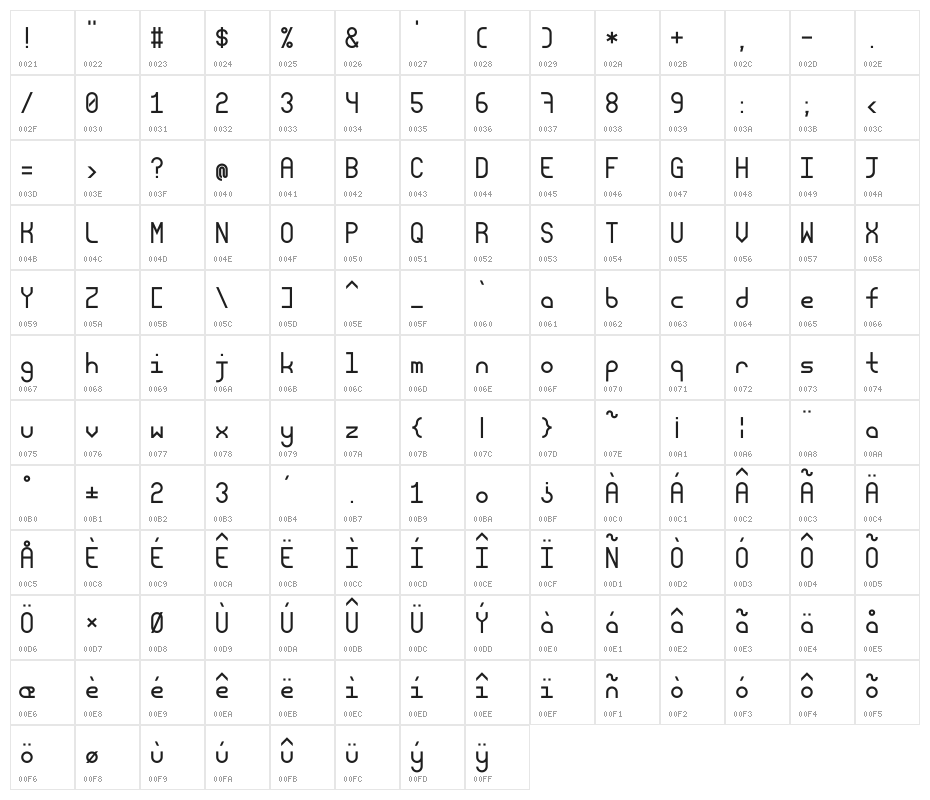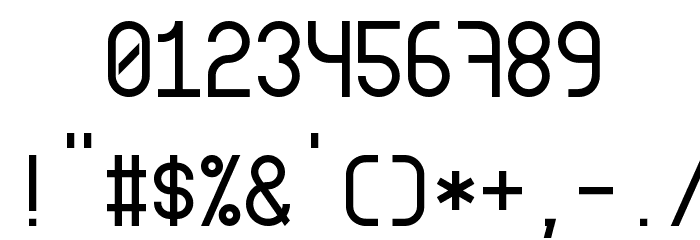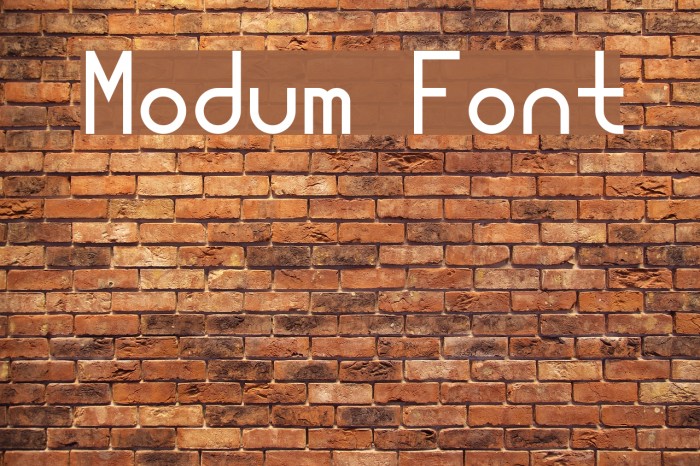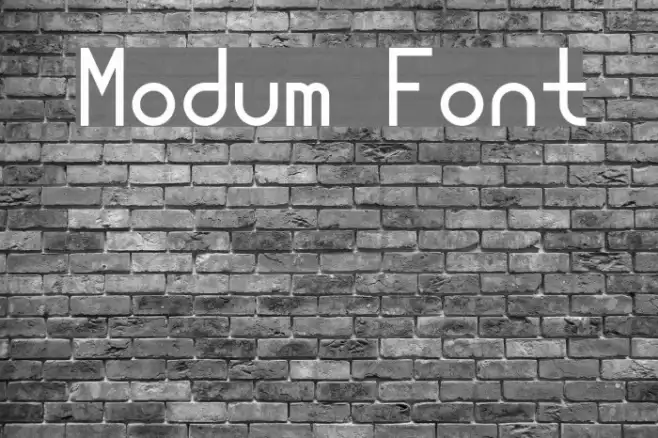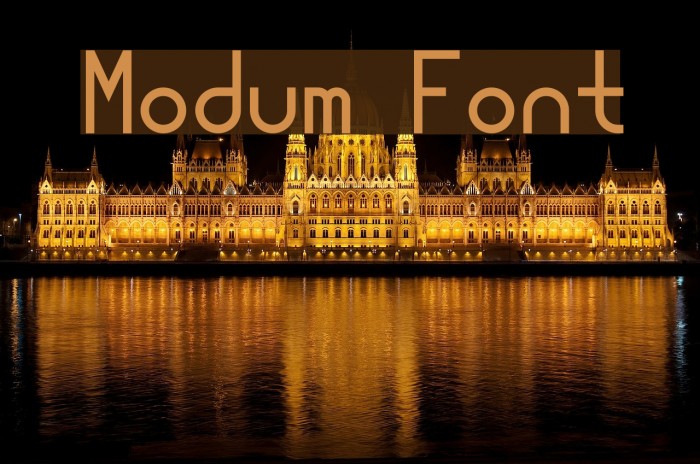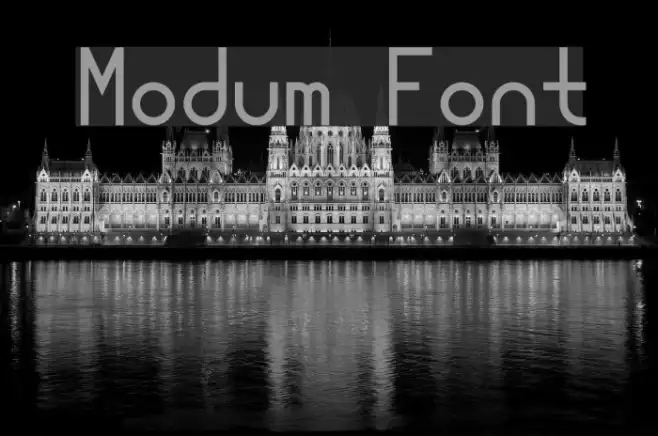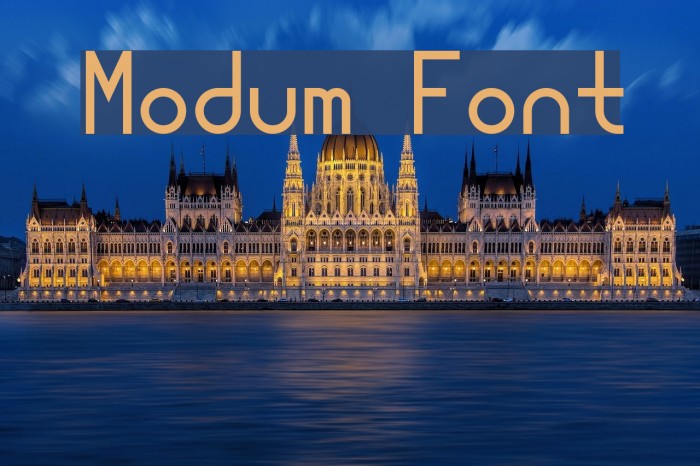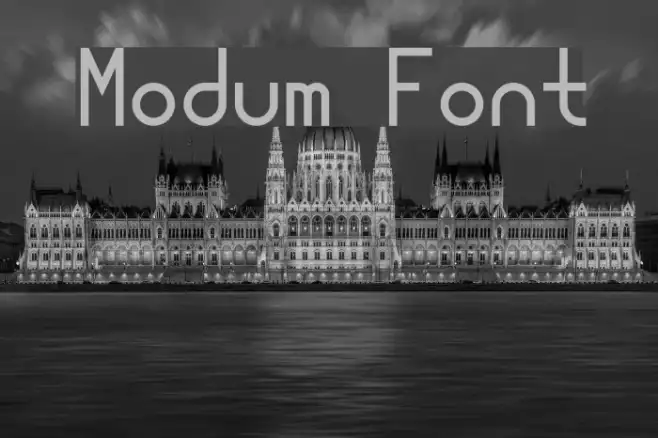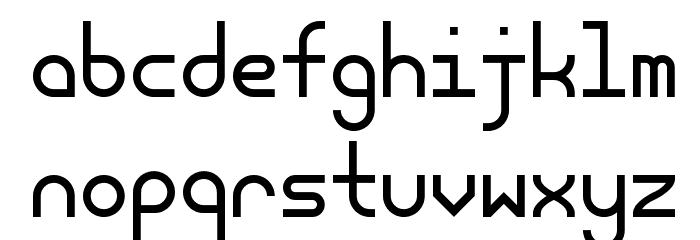
Modum Font
Modum Description
This font features a modern and geometric design with clean, straight lines and uniform stroke widths. The characters are well-balanced, with a slightly condensed appearance that gives a structured and organized feel. The uppercase letters are bold and commanding, while the lowercase letters maintain a consistent style with rounded edges that soften the overall look. The numerals are clear and legible, matching the geometric style of the alphabet. Special characters are distinct and integrate seamlessly with the rest of the font, making it versatile for various applications.
| Use Case | Headlines, Logos, Digital Interfaces |
| Proposed Projects | Ideal for tech branding, modern web design, and digital interfaces. |